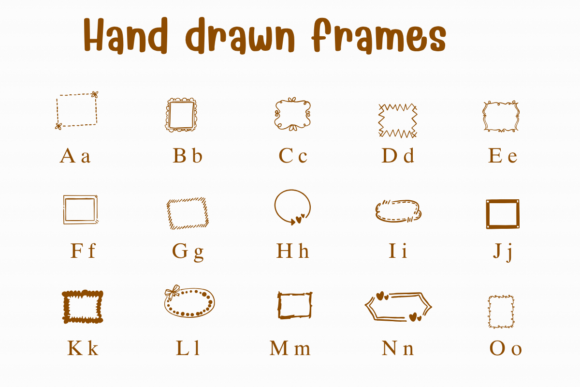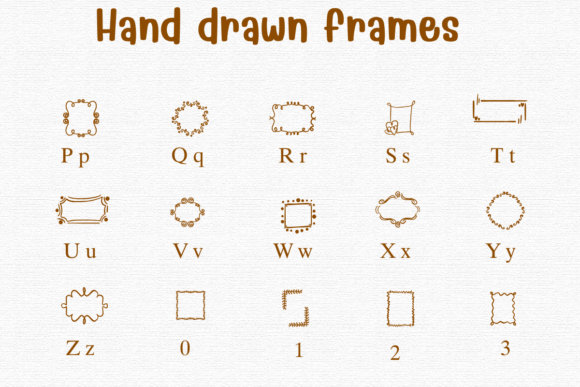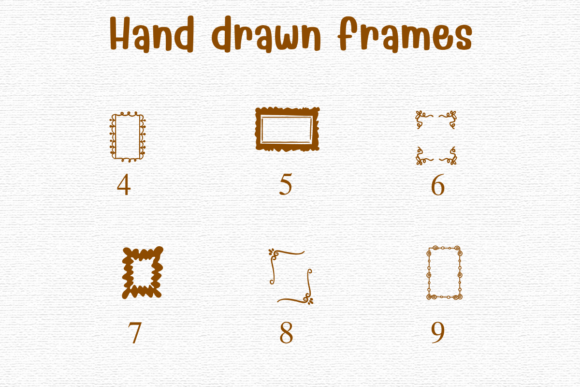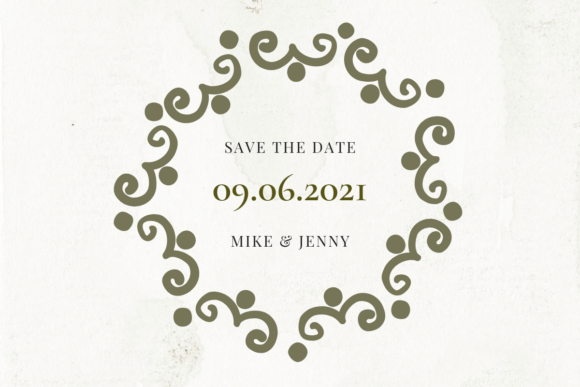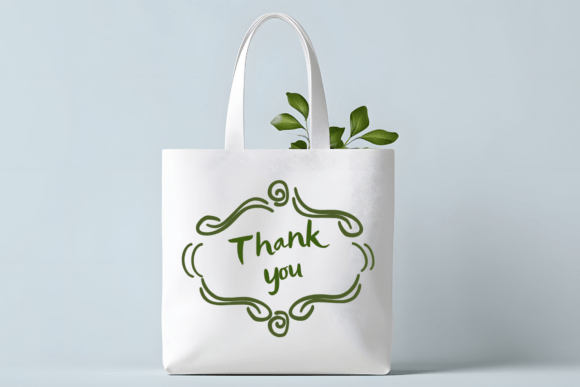
Introducing Hand Drawn Frames Font: Add a Touch of Whimsy to Your Creative Projects
Are you tired of using the same old generic borders and frames in your creative projects? Look no further than Hand Drawn Frames Font, a charming dingbats font that adds a touch of whimsy and personality to any design. This delightful font is filled with a wide range of decorative borders, flourishes, and doodles that are perfect for planners, scrapbooking, labels, invitations, and any other creative project that needs a hand-crafted touch.
What is Hand Drawn Frames Font?
Hand Drawn Frames Font is a unique dingbats font that features a collection of hand-drawn frames, borders, and flourishes. The font is designed to resemble a playful, hand-crafted aesthetic, with intricate details and imperfections that give it a charming, organic feel. From scalloped edges to ornate curls and playful doodles, this font has everything you need to add a touch of personality to your designs.
Key Features of Hand Drawn Frames Font
- Wide range of decorative borders and flourishes: Hand Drawn Frames Font features a vast collection of decorative borders, frames, and flourishes that can be used to add a touch of whimsy to any design.
- Hand-drawn aesthetic: The font is designed to resemble a playful, hand-crafted aesthetic, with intricate details and imperfections that give it a charming, organic feel.
- Perfect for planners and scrapbooking: The font is ideal for use in planners, scrapbooking, and other creative projects that require a personal touch.
Uses for Hand Drawn Frames Font
Hand Drawn Frames Font is a versatile font that can be used in a wide range of creative projects, including:
- Planners and journals: Add a touch of personality to your planner or journal with decorative borders and frames.
- Scrapbooking: Use the font to create beautiful, one-of-a-kind scrapbook pages.
- Labels and invitations: Add a touch of whimsy to your labels and invitations with decorative borders and flourishes.
- Creative projects: Use the font to add a hand-crafted touch to any creative project, from art journals to mixed media collages.
Tips for Using Hand Drawn Frames Font
Here are a few tips for getting the most out of Hand Drawn Frames Font:
- Experiment with different sizes and colors: Don’t be afraid to experiment with different sizes and colors to find the perfect look for your project.
- Combine with other fonts: Combine Hand Drawn Frames Font with other fonts to create a unique and eye-catching design.
- Use for backgrounds and textures: Use the font to create backgrounds and textures that add depth and interest to your designs.
Hand Drawn Frames Font is a charming dingbats font that adds a touch of whimsy and personality to any design. With its wide range of decorative borders, flourishes, and doodles, it’s perfect for planners, scrapbooking, labels, invitations, and any other creative project that needs a hand-crafted touch. Whether you’re a designer or crafter, this font is sure to become a favorite in your collection.